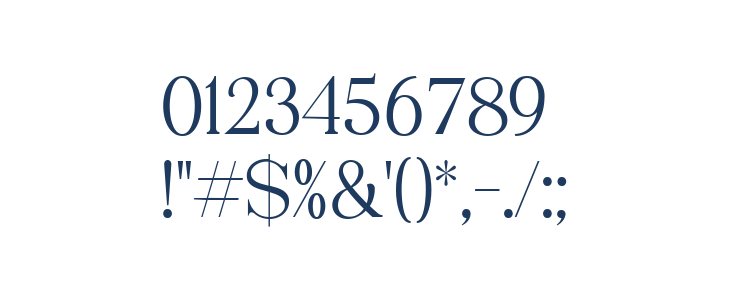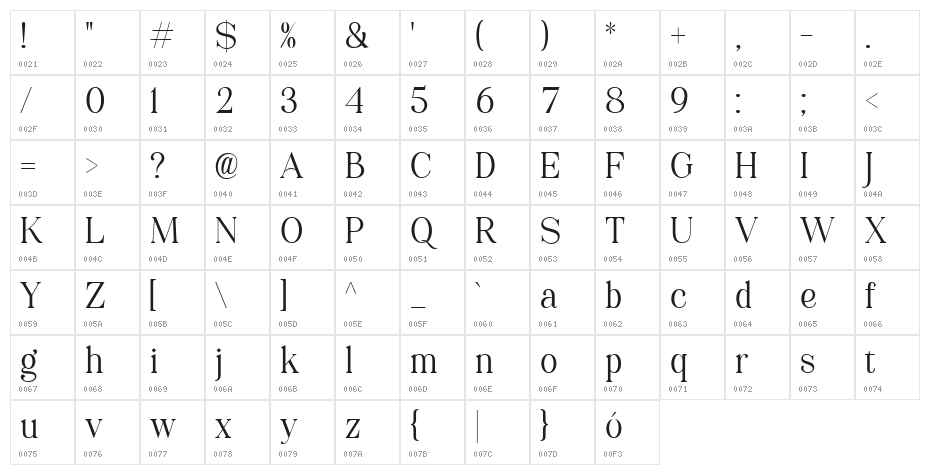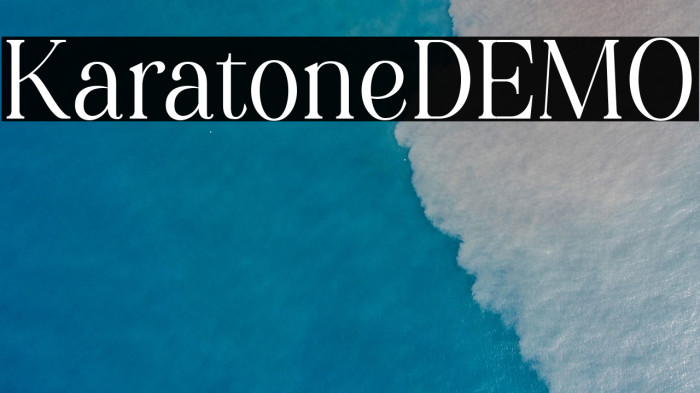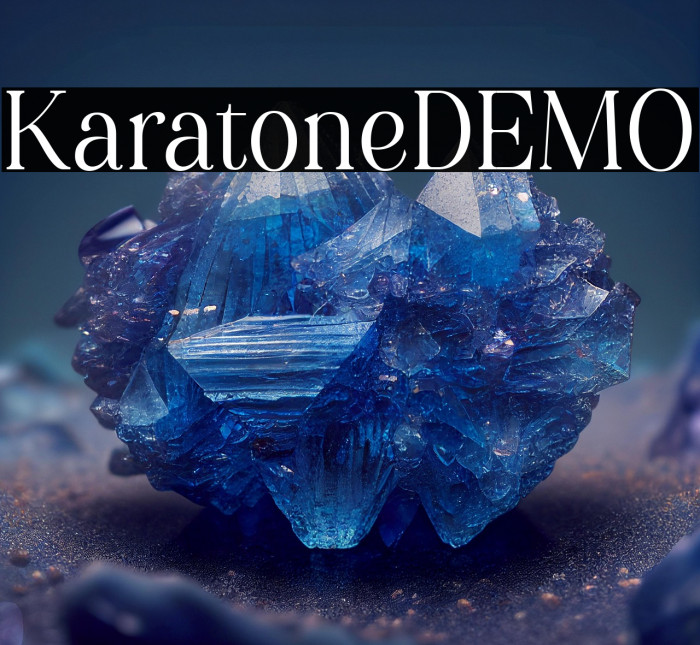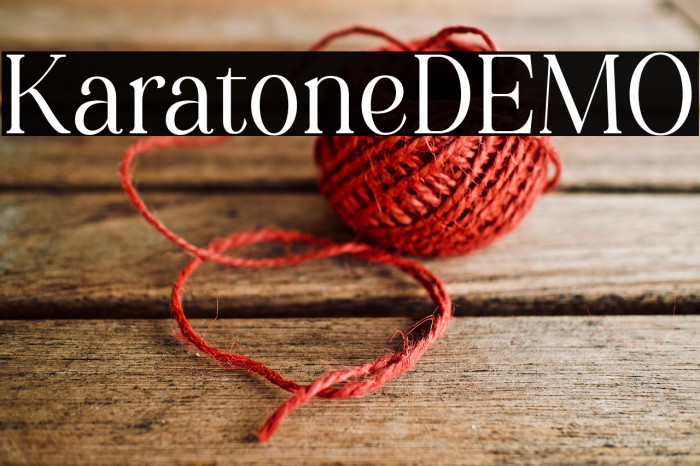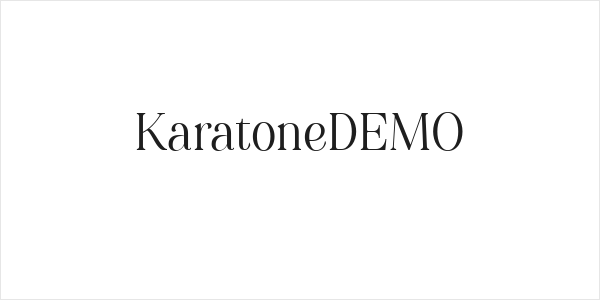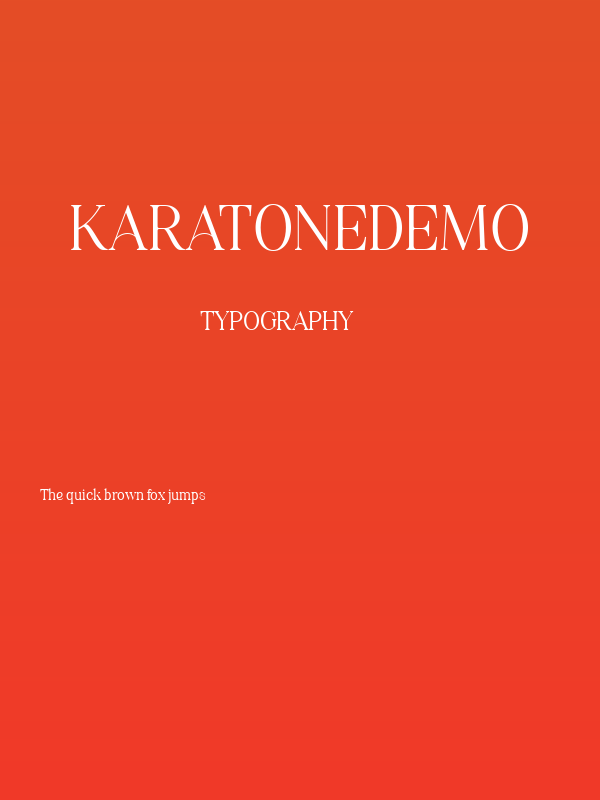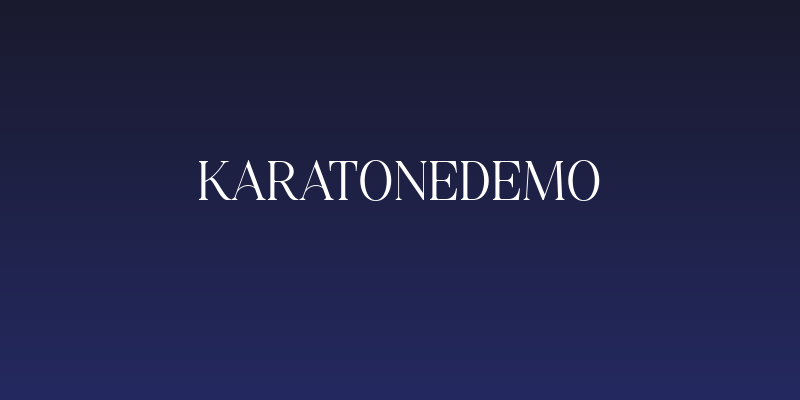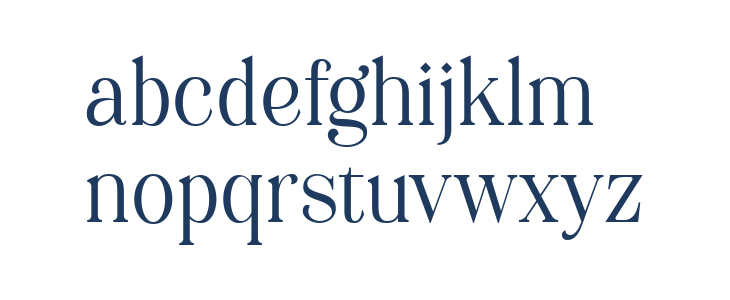
KaratoneDEMO Font
KaratoneDEMO Description
This font features a classic serif design with elegant and refined strokes. The uppercase letters are tall and commanding, while the lowercase letters maintain a balanced and harmonious appearance. The numerals are clear and distinct, making them easy to read. Special characters are crafted with precision, adding to the font's versatility. The overall design is sophisticated, making it suitable for formal and professional applications. The font's contrast in stroke thickness adds to its readability and visual appeal.
| Proposed Projects | Ideal for editorial design, book covers, formal invitations, and branding projects that require a touch of elegance. |